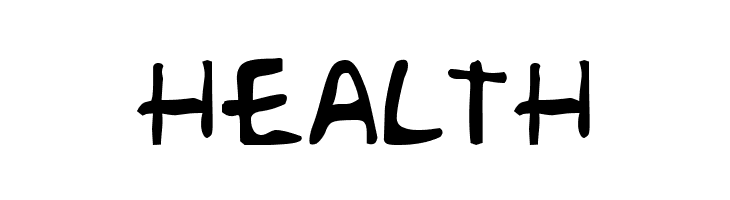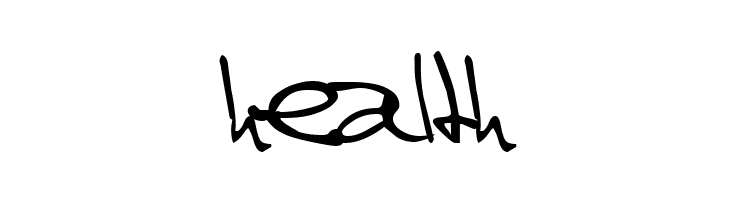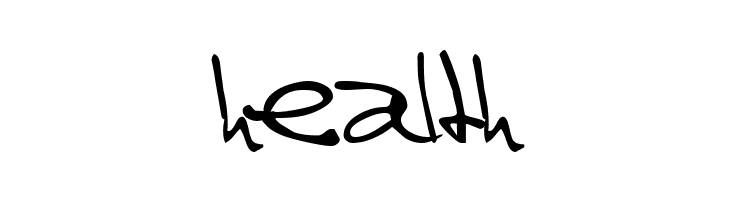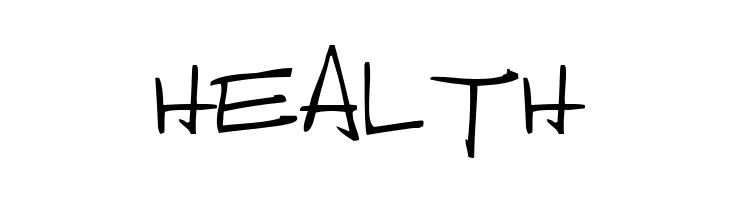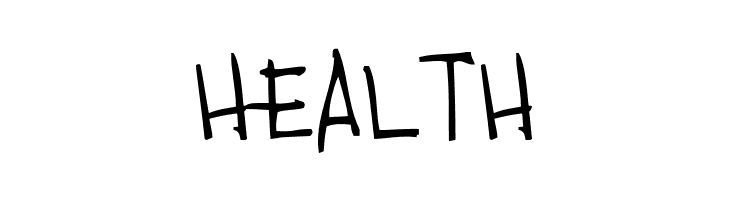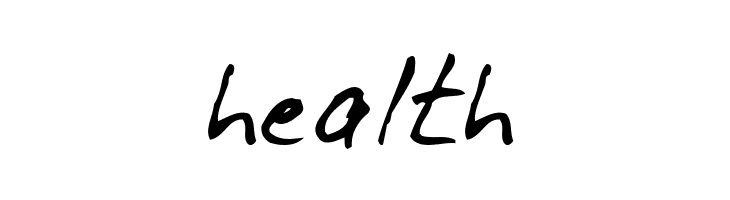
A bold, expressive handwritten font with dynamic strokes and a playful appearance.
A bold, graffiti-inspired font with angular, hand-drawn characters.
A bold, hand-drawn font with energetic, brush-like strokes.
A playful, handwritten font with tall, narrow letters and bold strokes.
A bold, handwritten font with a playful and casual style.